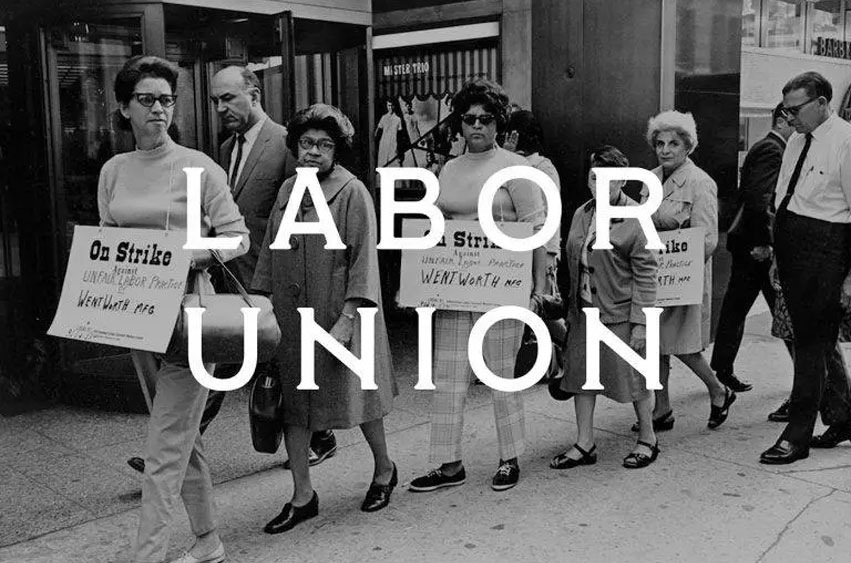
Labor Union Font
Labor Union Font which was designed by a student run group at Ithaca College called the Students of Labor Action. They fight for the rights of college employees and are heavily connected with the local county’s union, Tompkins County Workers Center.
Although it was designed to use in factories and anywhere else related to socialism or worker’s rights, the font’s possibilities are endless and completely free for all to use, as it always should be.